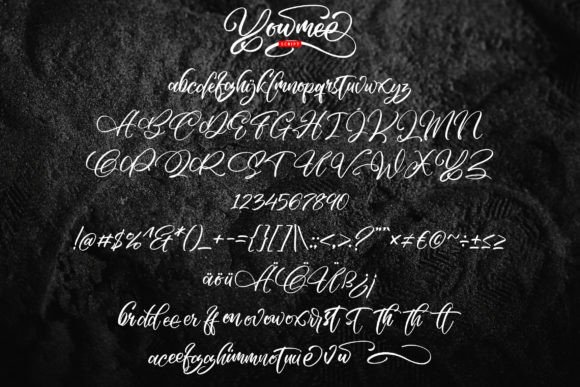
Yowmee Font
The Yowmee Font Download is a romantic and sweet calligraphy script designed to bring elegance and charm to your creative projects. With graceful curves and dancing characters, Yowmee captures the warmth of handwritten calligraphy while keeping a modern, polished look. Whether you are designing invitations, logos, or digital graphics, this font adds a luxury spark to every project.
A Romantic Calligraphy Script
The Yowmee script font features characters that flow naturally along the baseline, creating a dynamic and graceful style. As a result, it feels both timeless and fresh. Furthermore, its calligraphic strokes adapt beautifully to projects requiring sophistication and artistry.
Handwritten calligraphy always enhances stationery. The Yowmee Font is ideal for wedding invitations, thank you cards, seasonal greetings, and birthday designs. Because of its flowing calligraphic strokes, it ensures your cards look polished, heartfelt, and unique. In addition, it gives your stationery a memorable touch of luxury.
Branding and Logo Design with Yowmee Font
Typography plays an important role in shaping brand identity. The Yowmee handwritten calligraphy font is excellent for boutique logos, product packaging, and promotional campaigns. Its romantic yet professional look makes businesses appear stylish and approachable. Therefore, it is especially effective for fashion, beauty, and lifestyle brands.
Posters, Quotes, and Editorial Projects
The Yowmee Font Download also shines in posters, banners, magazines, and book covers. Its romantic strokes and graceful flow make quotes stand out while maintaining readability. Consequently, it is a reliable option for designers who want sophistication in both print and digital layouts.
In today’s digital landscape, fonts must adapt across multiple platforms. The Yowmee typeface integrates seamlessly into Instagram posts, YouTube thumbnails, Pinterest boards, and blogs. Because of its handwritten calligraphy style, it makes digital projects stylish and engaging.
Why Designers Choose Yowmee Typeface
Designers value fonts that balance romantic beauty with usability. The Yowmee handwritten script maintains its charm while being practical across many applications. This makes it suitable for both professionals and hobbyists. Moreover, its timeless calligraphy style ensures that it remains relevant for years to come.
If you want a calligraphy font that feels sweet, romantic, and versatile, the Yowmee Font Download is the perfect choice. From wedding invitations and thank you notes to logos, posters, and digital content, it enriches every design with luxury handwritten beauty. Finally, download Yowmee today and let your creative work shine with timeless calligraphy elegance.